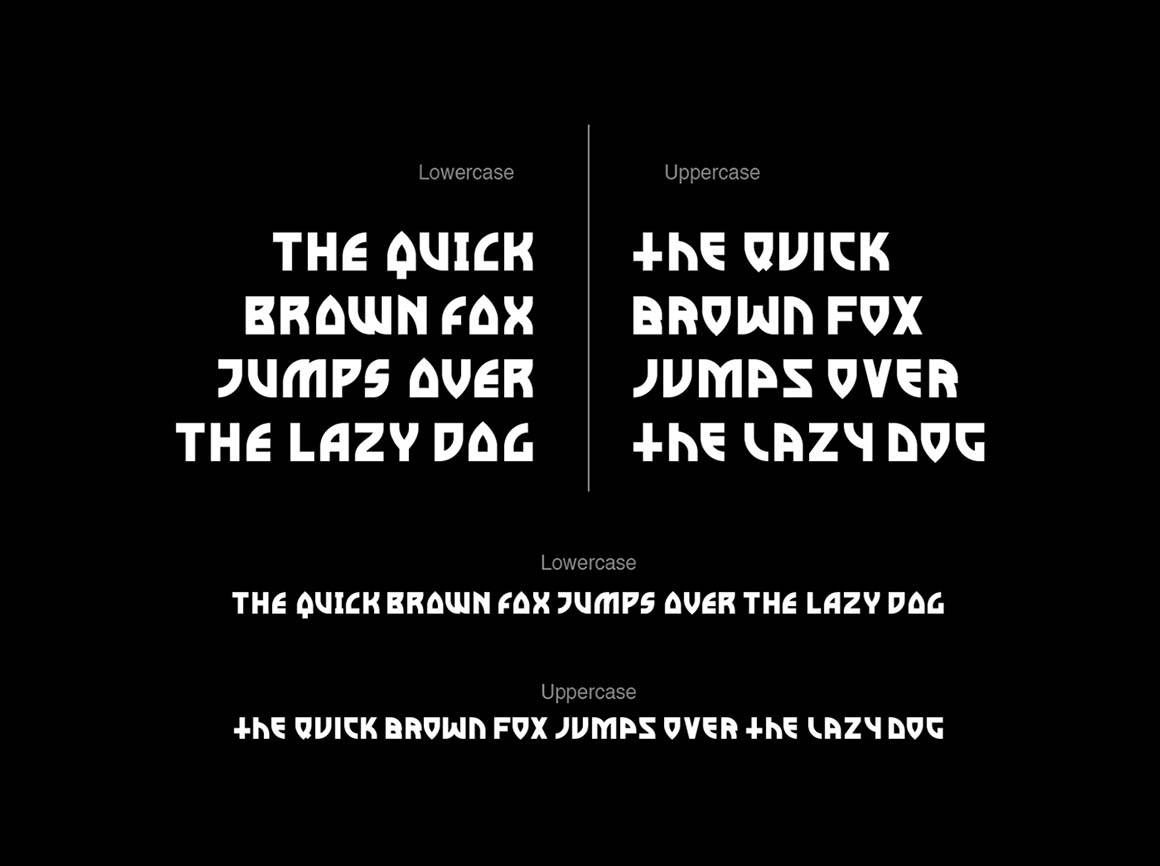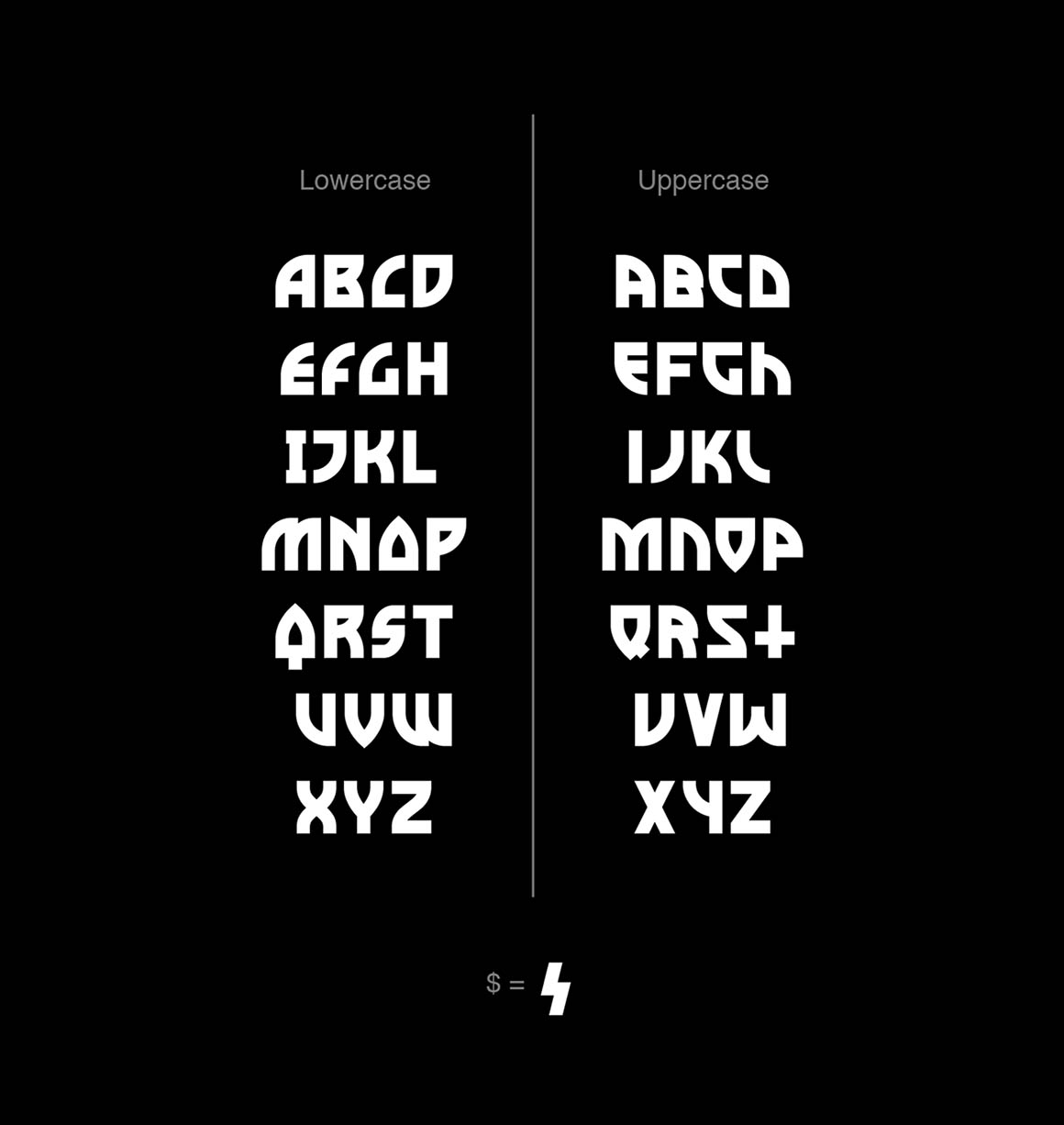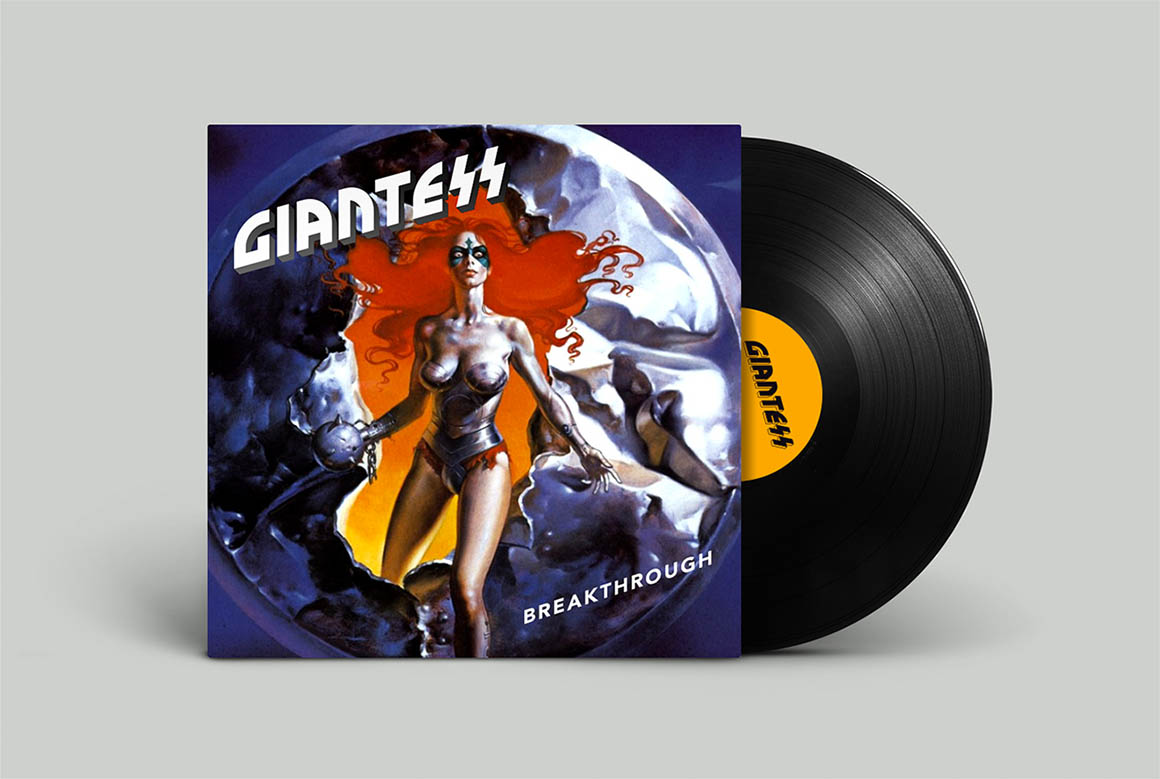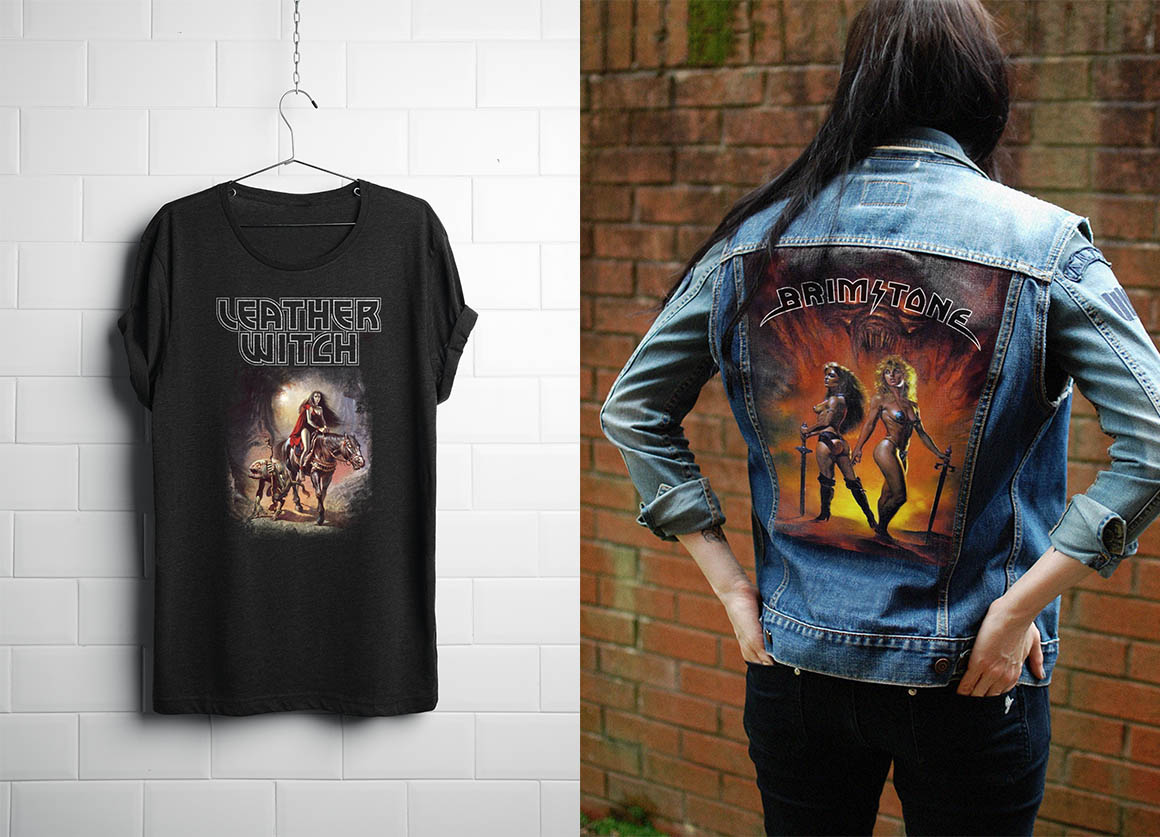
Metal Curve – Free Font
This modern or futuristic style custom font is from Matt Smith. An all caps font / typeface with amazing futuristic style. Download and enjoy 😉